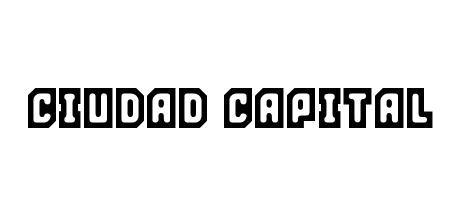
Ciudad Capital
Ciudad Capital is a bold, sans-serif typeface. Its blocky, uppercase letters possess a strong, almost monumental feel. Each letter features a distinct, thick outline creating a strong contrast with the white background. The overall style evokes a sense of retro gaming or vintage signage. It’s a highly legible and impactful font.